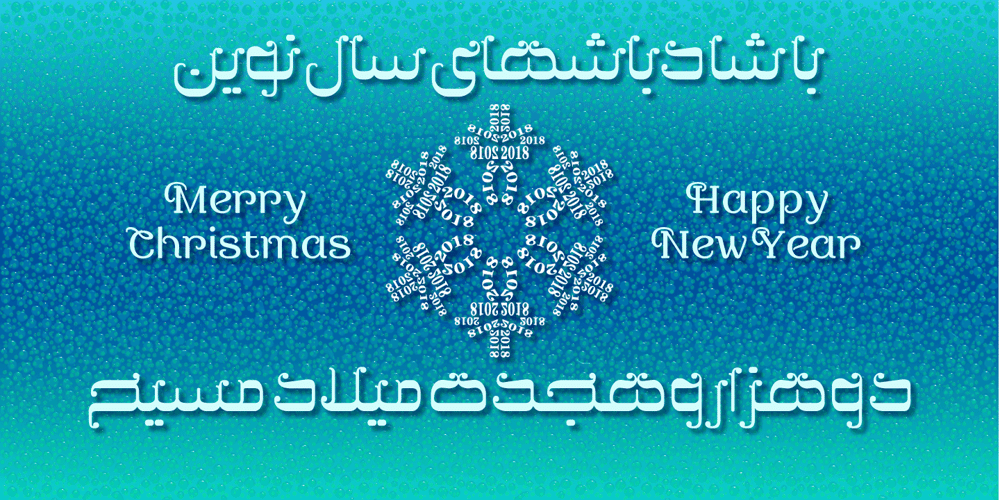
Afsoon Font Family was designed by Naghi Naghashian and published by Naghi Naghachian. Afsoon contains 1 styles and family package options. Afsoon is a decorative headline font designed by Naghi Naghashian.This font is a contribution to modernisation of Arabic typography, gives the font design of Arabic letters real modern arrangement und provides more typographic flexibility. Afsoon supports Arabic, Persian and Urdu. It also includes proportional and tabular numerals for the supported languages.